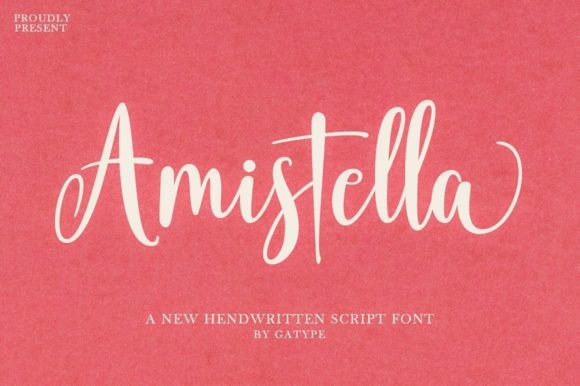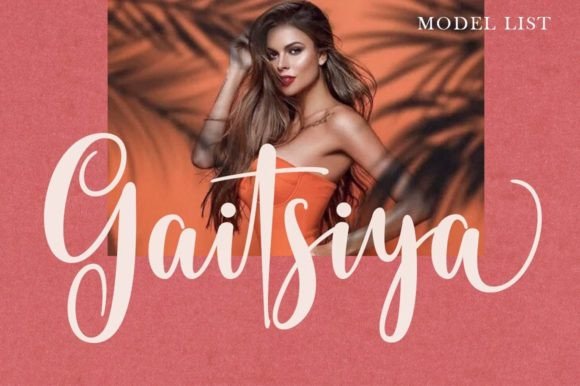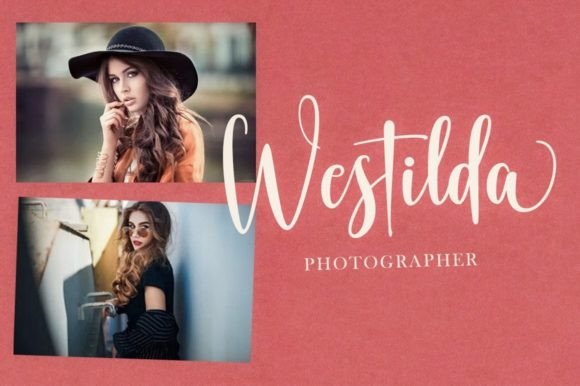
About Amistella Font
Amistella, a captivating handwritten font, stands as a beautiful choice suitable for a myriad of design purposes. Its versatile nature makes it a perfect fit for an array of creative projects, ranging from branding and invitations to stationery, wedding designs, social media posts, advertising, product packaging, labels, photography, watermarks, special events, and beyond.
The allure of Amistella lies in its ability to adapt seamlessly to various design contexts. Whether you’re crafting an elegant wedding invitation, developing a striking brand identity, or adding a personal touch to your social media posts, this font adds a touch of grace and charm to your creations.
The versatility of Amistella extends to product packaging and design, where it can enhance the visual appeal of labels and product branding. Its handwritten aesthetic brings a sense of authenticity and warmth, making it well-suited for products that aim to connect with consumers on a personal level.
One notable feature of Amistella is its PUA (Private Use Area) encoding, ensuring easy access to all glyphs and swashes. This means that you have the flexibility to explore and incorporate a variety of design elements seamlessly, allowing you to customize your projects with ease and precision.
In conclusion, Amistella is not just a font; it’s a versatile tool that opens up a world of creative possibilities. Its beauty and functionality make it a valuable asset for designers across different industries, enabling them to bring a touch of elegance and personalization to a wide range of projects. Whether you’re working on digital or print materials, Amistella is poised to elevate your designs with its handwritten charm and accessibility through PUA encoding.